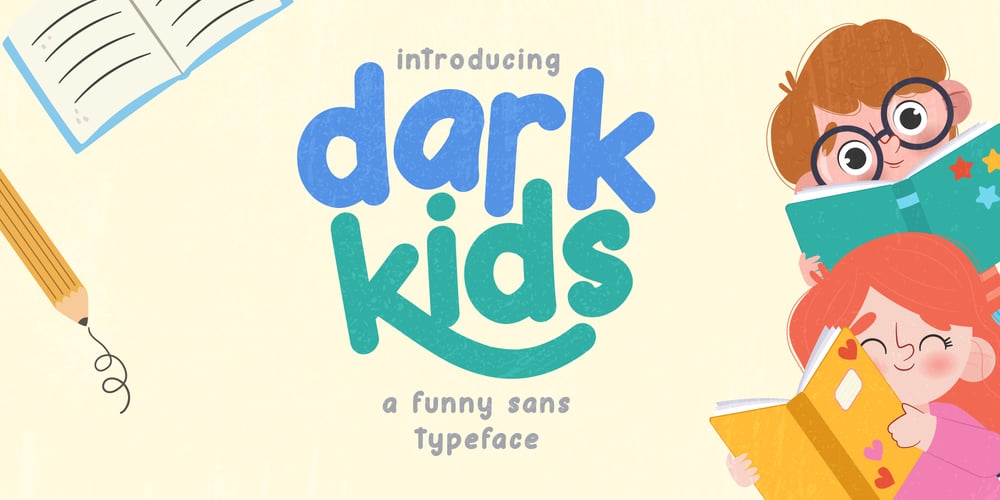
Dark Kids Font Family was designed by Abul Almaududi and published by Pixesia Studio. Dark Kids contains 1 styles and family package options. Introducing Dark Kids – A Funny & Playful Sans FontDark kids is a funny sans typeface. This type is formed with rounded-letter to make it more playful and cute vibes. This type is also designed to be bold yet it still spreads the bubbly vibes which is suitable for kids.This font is meant to attract kids so it is better used for any non-formal kids product such as children-books, baby products, and any writing which related to kids.FEATURES- Stylistic Alternates- PUA Encoded- Uppercase and Lowercase letters- Numbering and Punctuations- Multilingual Support- Works on PC or Mac- Simple Installation- Support Adobe Illustrator, Adobe Photoshop, Adobe InDesign, also works on Microsoft WordHope you Like it.Thanks.